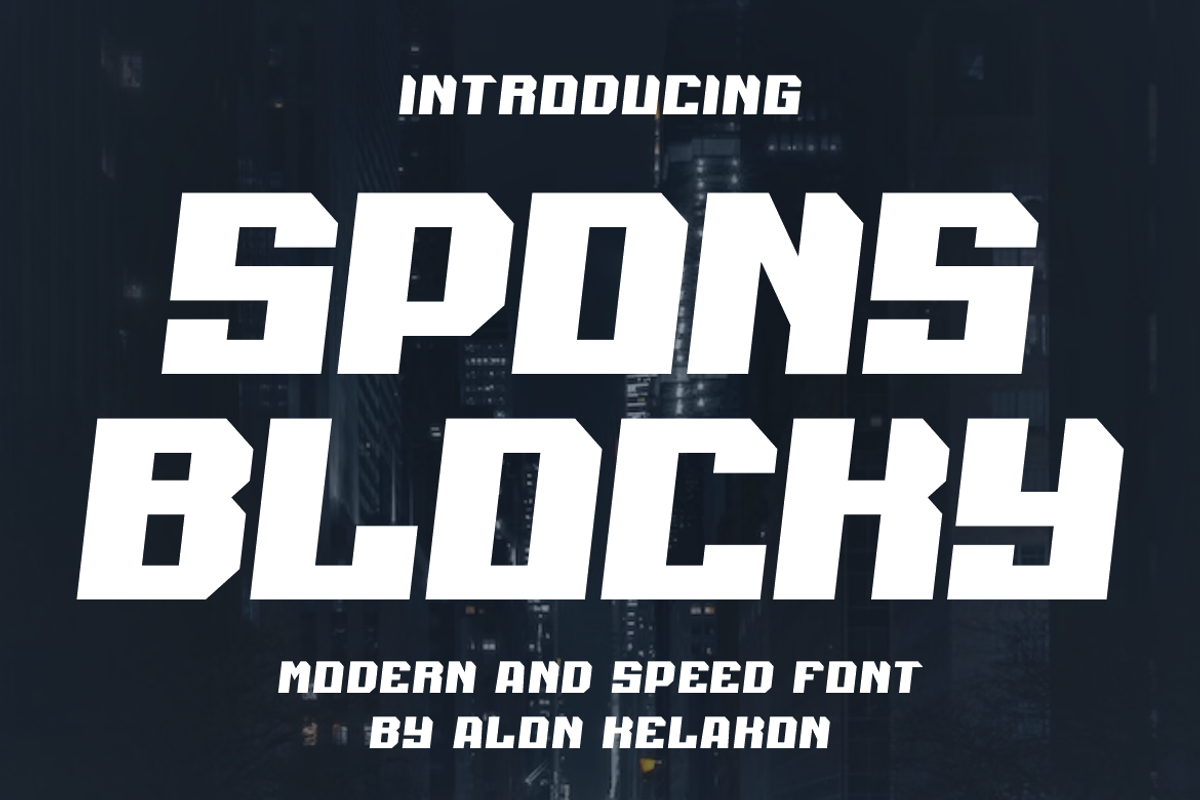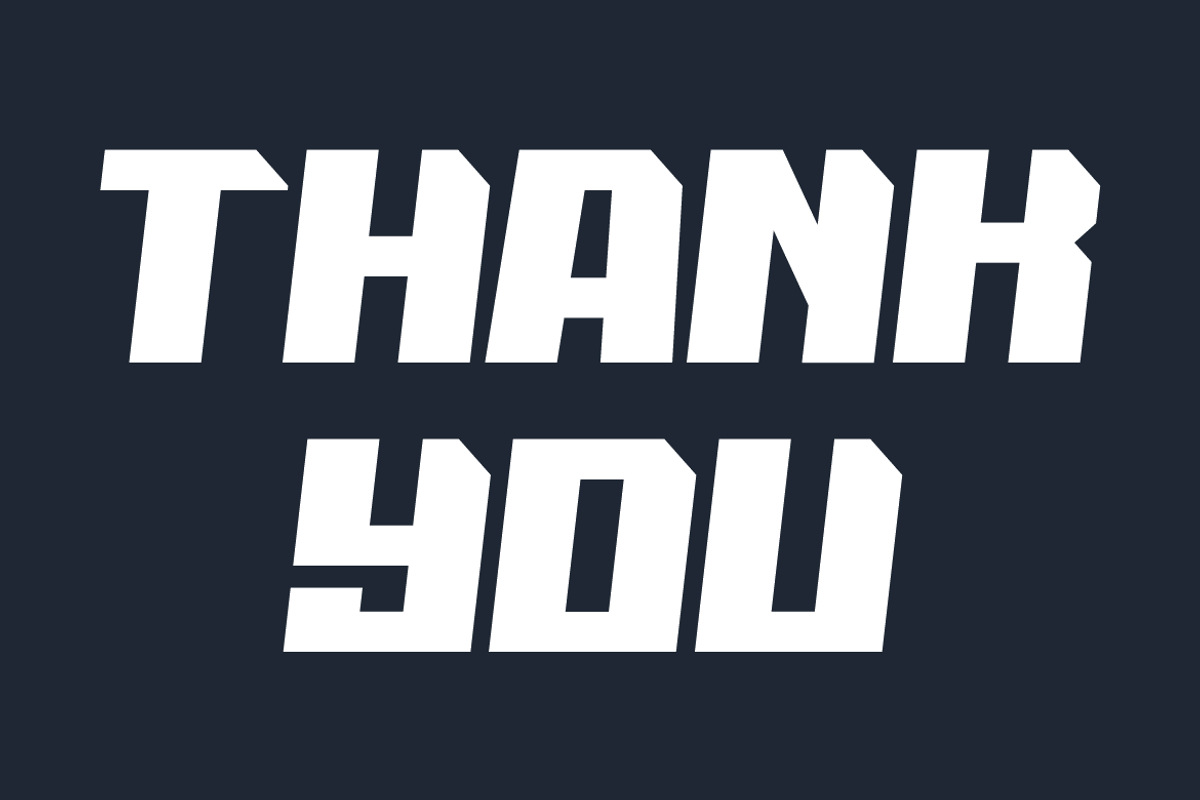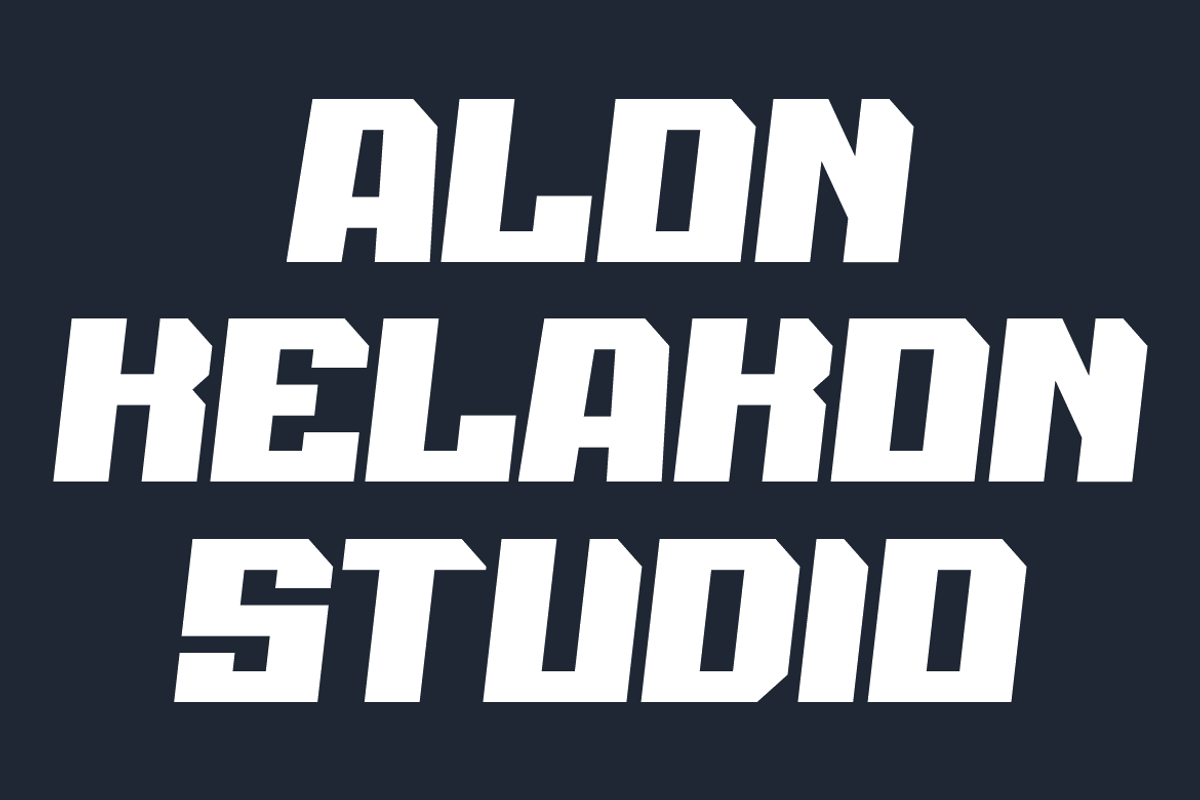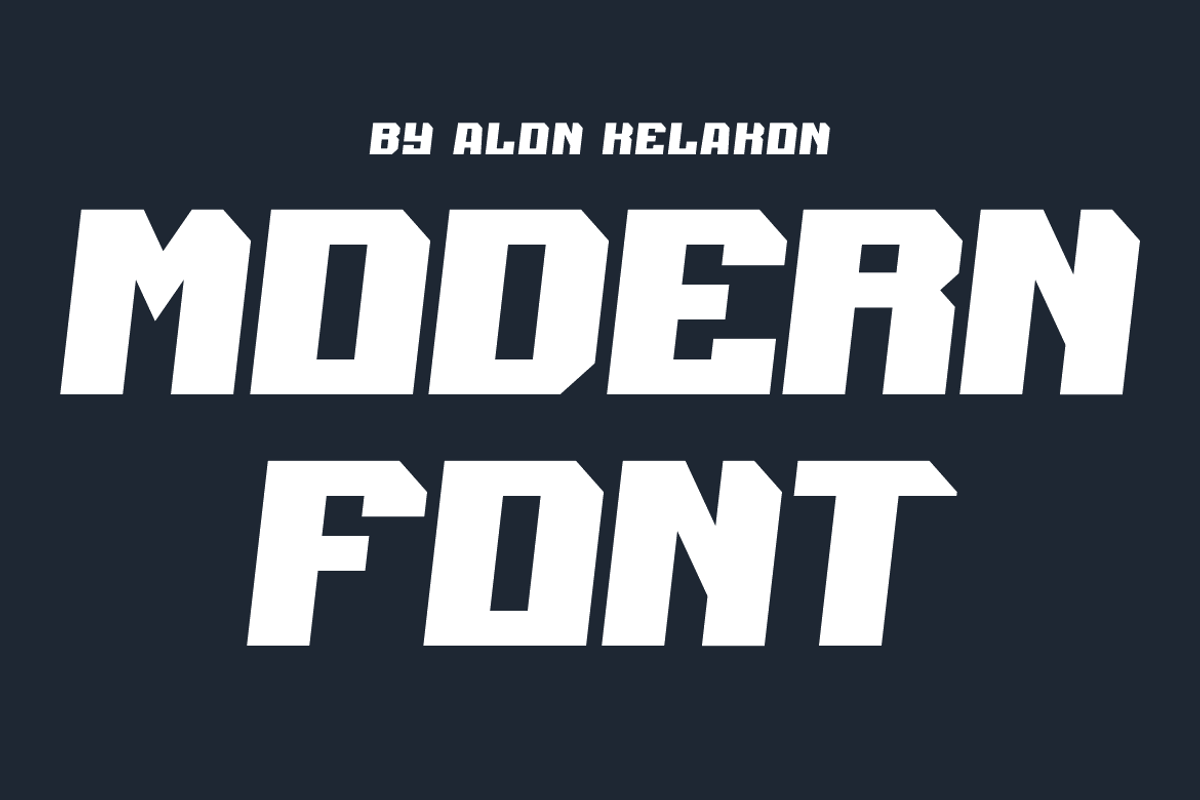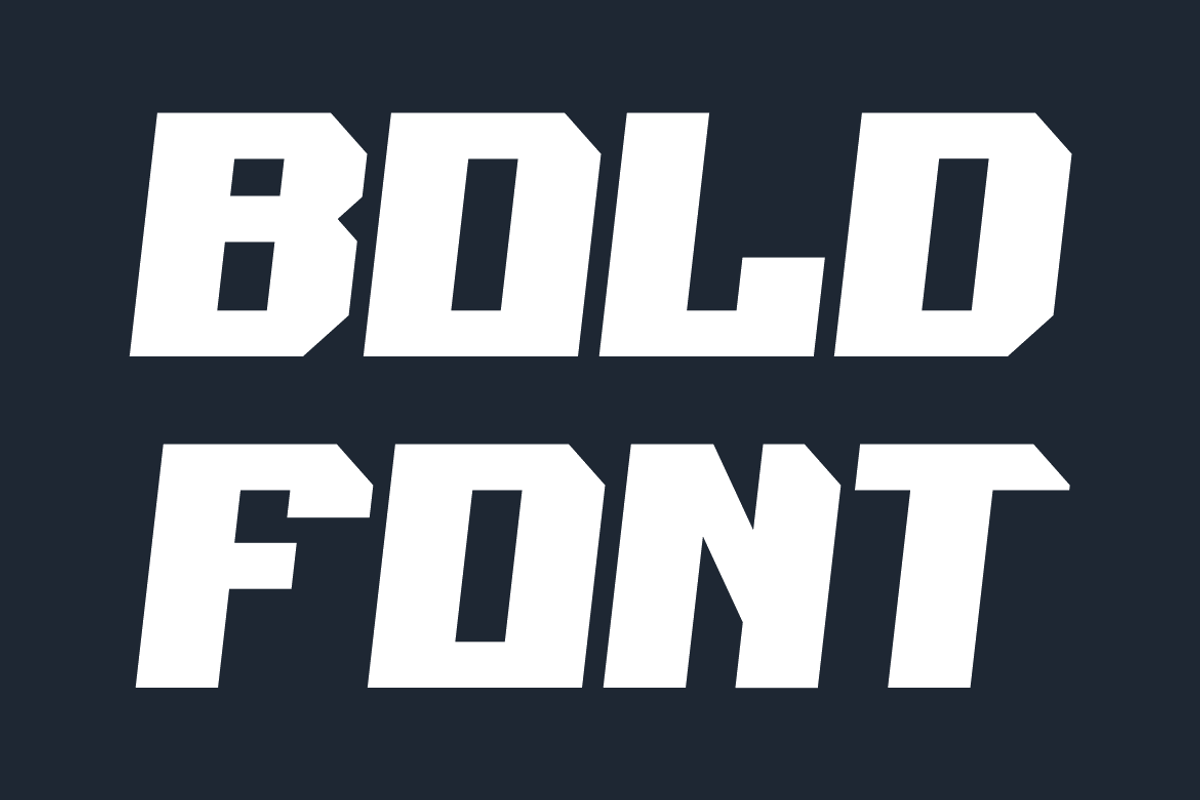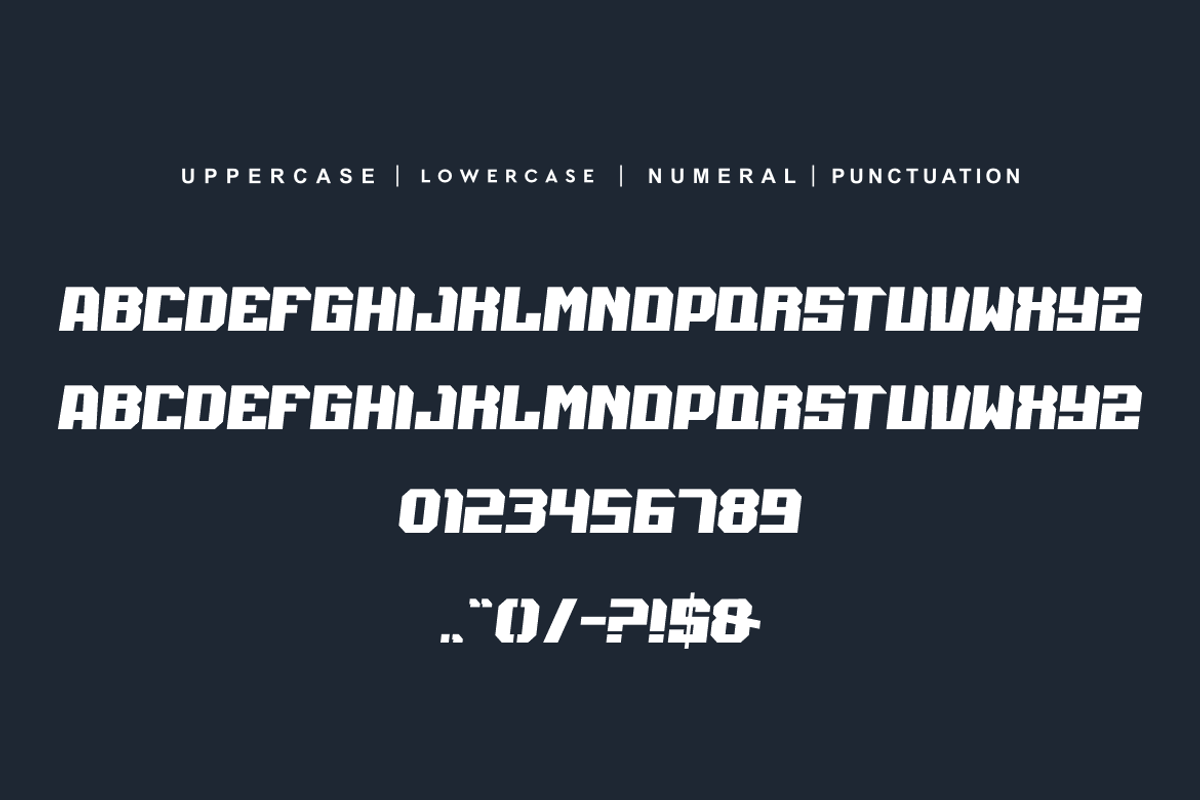
Spons Blocky
Spons Blocky Font is unique . Ready to use for your design like labeling, movie sceen, poster, movie title, gigs, album covers, logos, and much more.